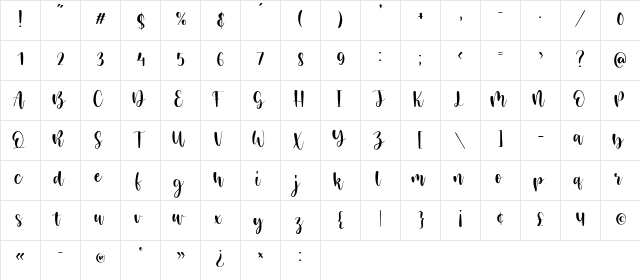
Mistikus Cinta Regular
| Designer | Balpirick Studio |
Design Context for Mistikus Cinta Typeface
Mistikus Cinta is a composed and adaptable typeface that performs quietly and consistently across a wide range of design contexts.